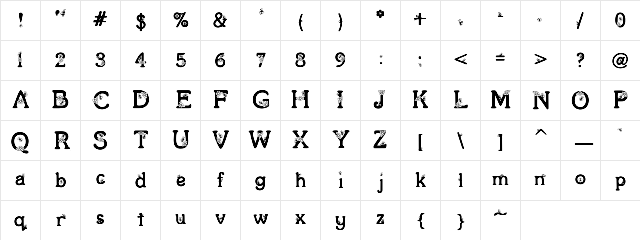
Clipz Busybee Regular
Design Context for Clipz Busybee
Clipz Busybee is a composed and adaptable typeface that performs quietly and consistently across a wide range of design contexts.